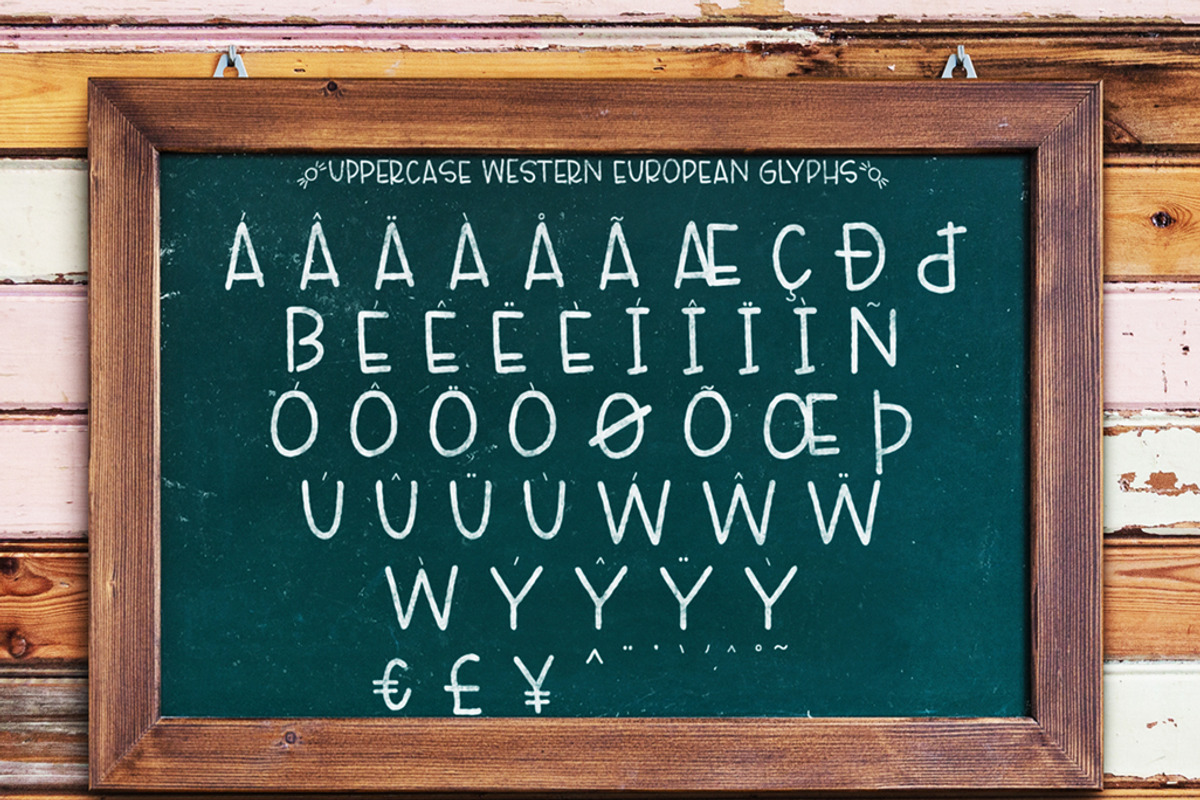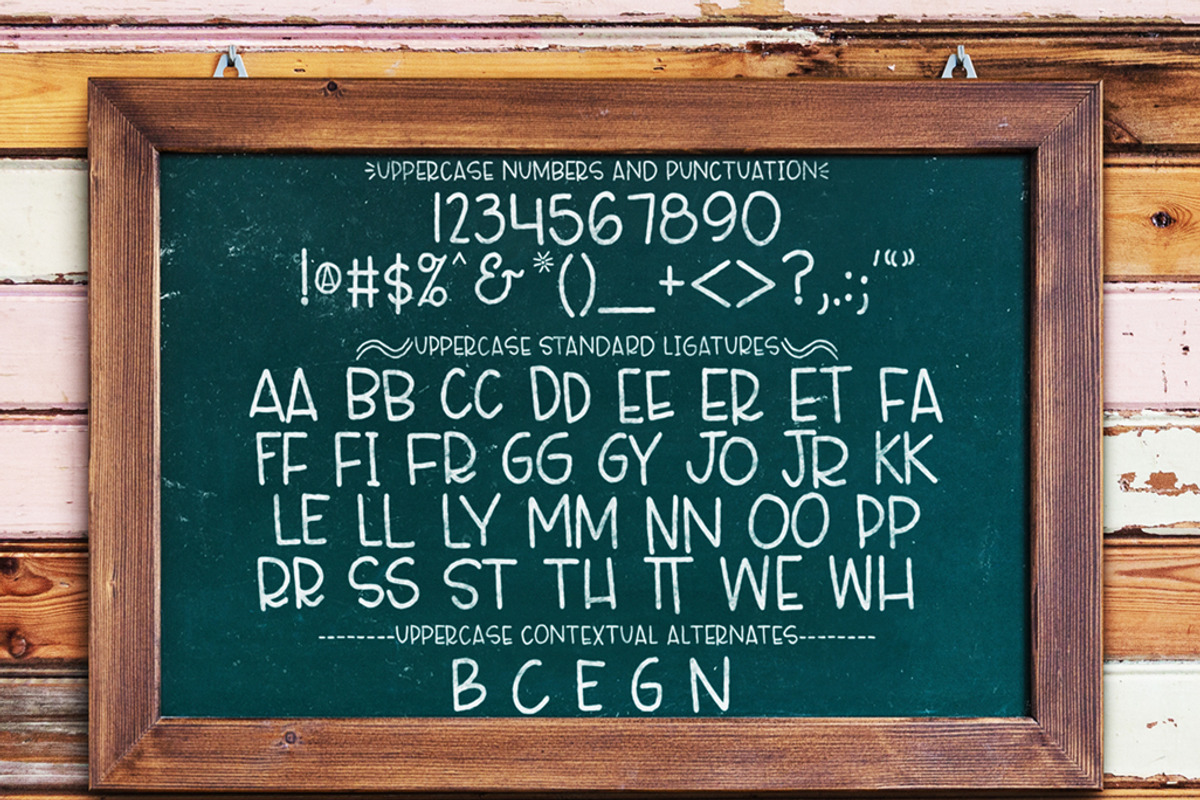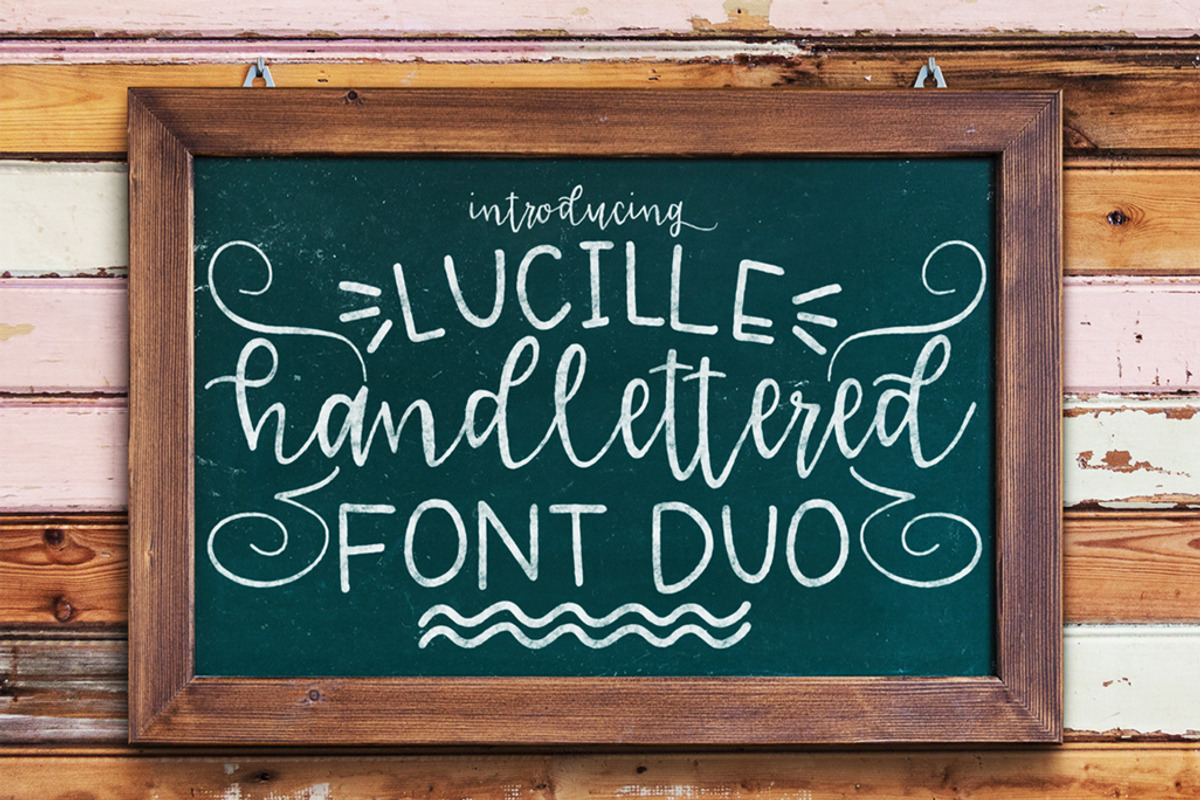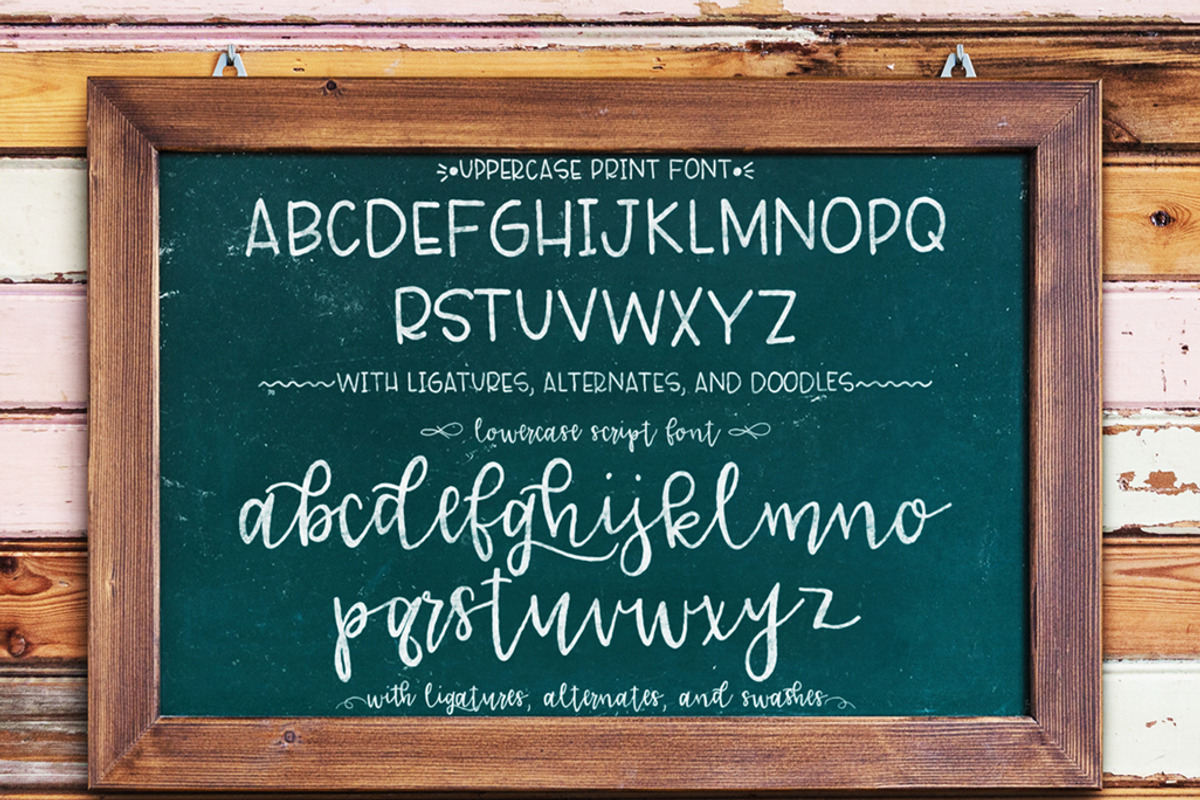
Lucille Hand Lettered Font Duo
Give your designs a hand-lettered dose of personality with font duo, Lucille Handlettered! This font (uppercase Print and lowercase Script) was designed to work perfectly with each other to create a unique and genuine hand-lettered look and feel to all your projects.
Lucille Handlettering includes 3 styles (in two fonts), created to pair perfectly together to bring your designs to life: Uppercase Print, Lowercase Script, and Doodles/Swashes.
An upppercase Print font with 30 custom ligatures for more unique, hand drawn look. Includes numbers, punctuation, and 26 hand drawn doodles (using the lowercase letters)
A lowercase Script font with 31 custom ligatures and 14 contextual alternates to create an incredible hand-lettered look. Includes numbers, punctuation, and 26 hand drawn swashes (using the uppercase letters)